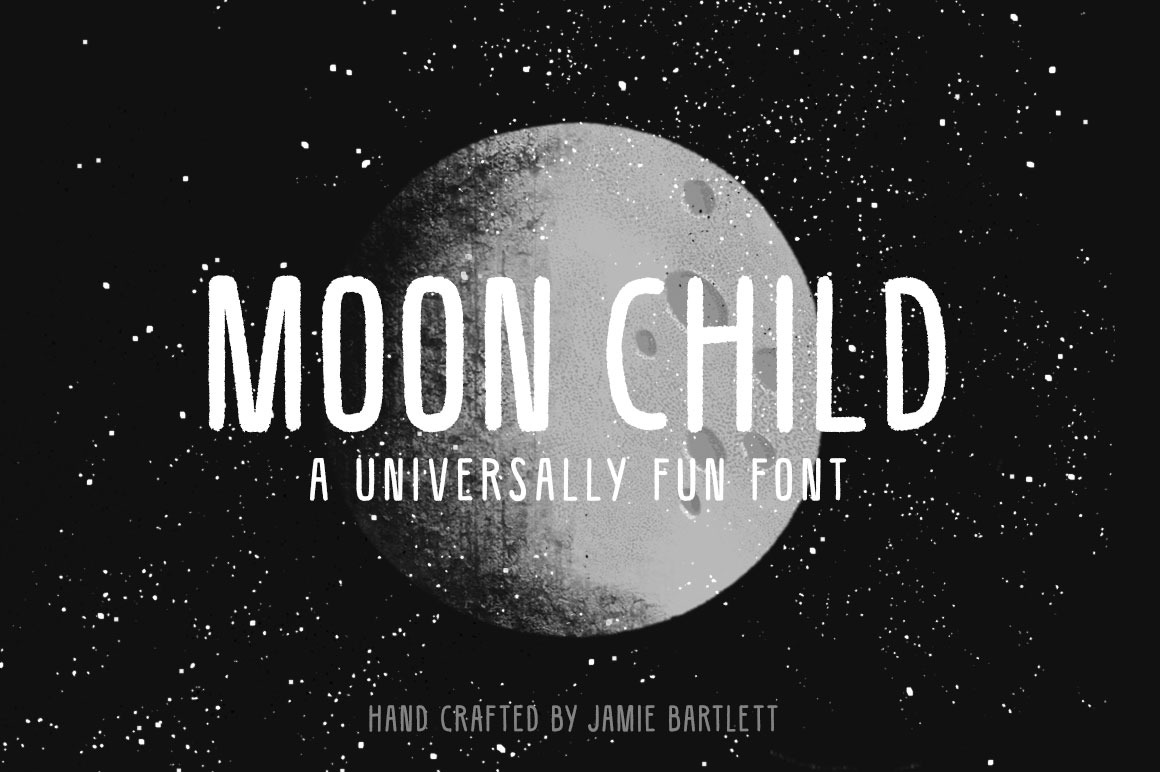
Moon Child Font
Moon Child is an uppercase hand drawn OTF font that is out of this world. This font is great for adding some quirkiness to your designs.
Moon Child includes:
- Uppercase letters
- Select special characters and punctuation (see photo for all glyphs listed)